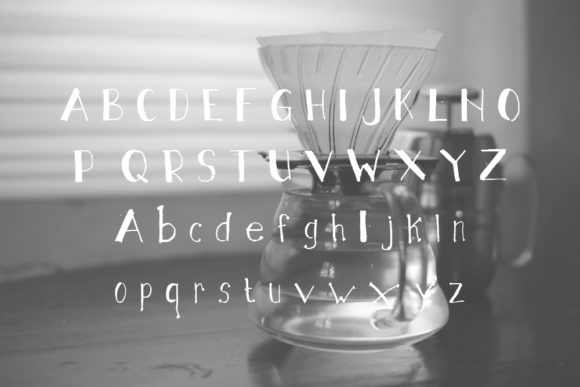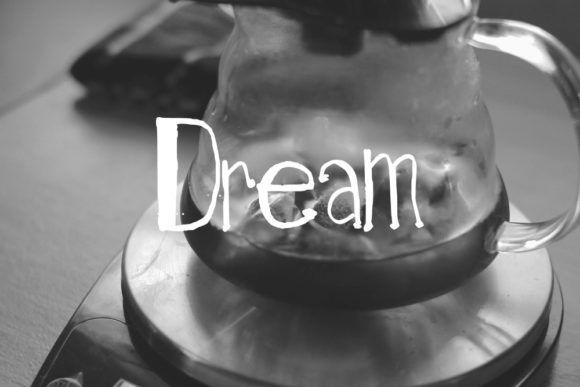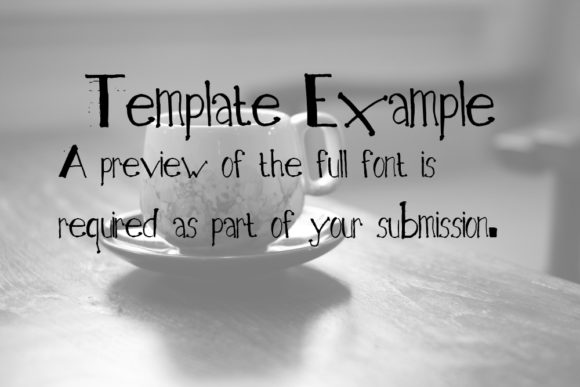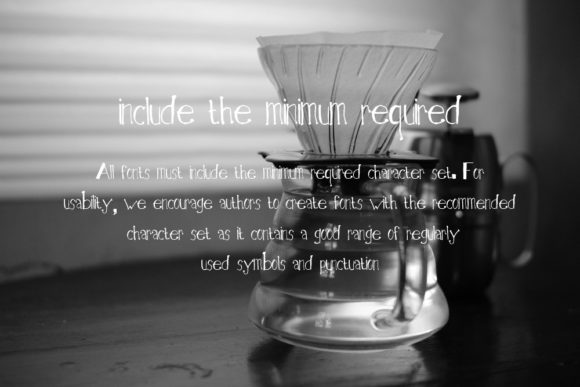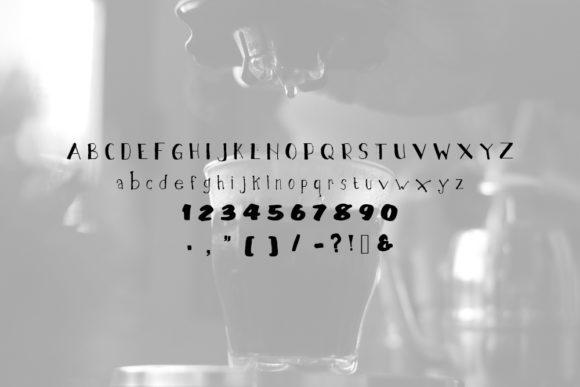
Introducing Alimtapa Font: The Sweet and Friendly Handwritten Font for Your Creative Projects
Are you a designer, crafter, or DIY enthusiast looking for a font that can add a personal touch to your projects? Look no further than Alimtapa Font, a sweet and friendly handwritten font that’s perfect for a wide range of designs. With its natural and unique style, Alimtapa Font is incredibly versatile and can be used in various creative projects, from paper crafting and scrapbooking to digital design and branding.
The Charm of Alimtapa Font
Alimtapa Font is a beautifully designed handwritten font that’s characterized by its sweet and friendly feel. Its natural and unique style makes it stand out from other fonts, and its versatility ensures that it can be used in a variety of designs. Whether you’re creating a handmade card, a scrapbook page, or a digital graphic, Alimtapa Font is sure to add a touch of warmth and personality to your project.
What Makes Alimtapa Font So Special?
So, what makes Alimtapa Font so special? Here are just a few reasons why designers and crafters love this font:
- Unique and Handwritten Style: Alimtapa Font has a unique and handwritten style that’s perfect for adding a personal touch to your projects.
- Natural and Friendly Feel: The font has a natural and friendly feel that’s sure to make your designs stand out.
- Versatile and Adaptable: Alimtapa Font is incredibly versatile and can be used in a wide range of designs, from paper crafting and scrapbooking to digital design and branding.
- Easy to Read and Use: The font is easy to read and use, making it perfect for designers and crafters of all skill levels.
How to Use Alimtapa Font in Your Designs
Alimtapa Font is easy to use and can be incorporated into your designs in a variety of ways. Here are a few ideas to get you started:
- Paper Crafting and Scrapbooking: Use Alimtapa Font to add a personal touch to your handmade cards, scrapbook pages, and other paper crafting projects.
- Digital Design and Branding: Use the font to create unique and eye-catching digital graphics, logos, and branding materials.
- DIY Projects and Crafts: Use Alimtapa Font to add a personal touch to your DIY projects and crafts, such as handmade journals, planners, and wall art.
Tips and Tricks for Getting the Most Out of Alimtapa Font
Here are a few tips and tricks for getting the most out of Alimtapa Font:
- Experiment with Different Colors and Textures: Try pairing Alimtapa Font with different colors and textures to create unique and eye-catching designs.
- Use the Font to Add Emphasis: Use Alimtapa Font to add emphasis to important words or phrases in your designs.
- Mix and Match with Other Fonts: Try mixing and matching Alimtapa Font with other fonts to create interesting and dynamic designs.